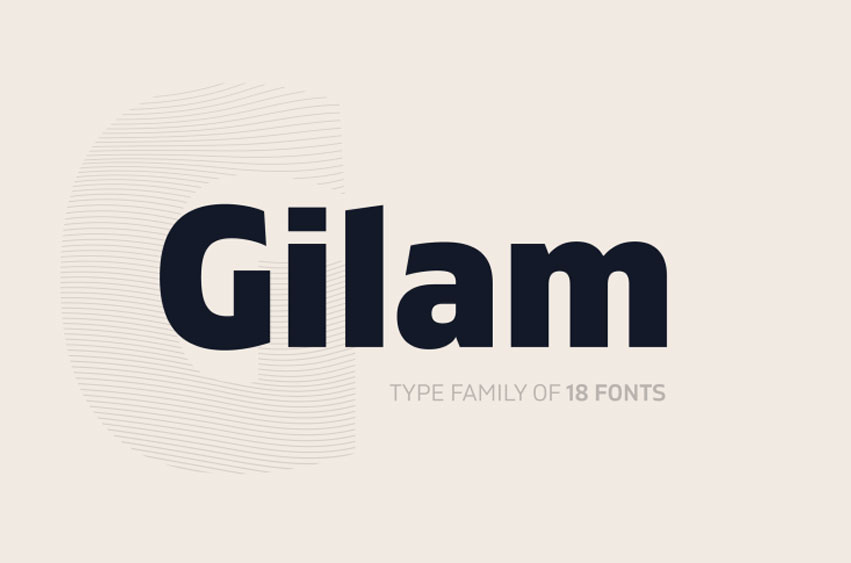
Gilam Font
Gilam Font is a modern geometric sans serif typeface with semi-condensed proportions based on DIN but enhanced with distinct Neo-grotesque features that set it apart, such as sharp edges on “M” and “W”, pointed edges in “W”, cut out terminals on both letters (M and W) as well as terminals that extend outwards – giving Gilam its unique style and appearance.
A collection of nine weights with italics provides designers with complete freedom when it comes to creating beautiful layouts using headlines, blocks of text motion graphics applications, logos and websites – just to name a few! This typeface offers endless creative potential!